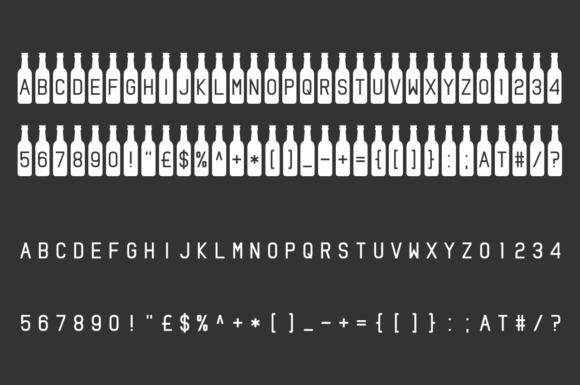
Introduction to Bottled It Font
Create your own promotional images for beer, wine, cola, lemonade or any other drink you can think of with this new bottle-based font.
Also perfect for New Years and Birthday cards .
Key Features of Bottled It Font